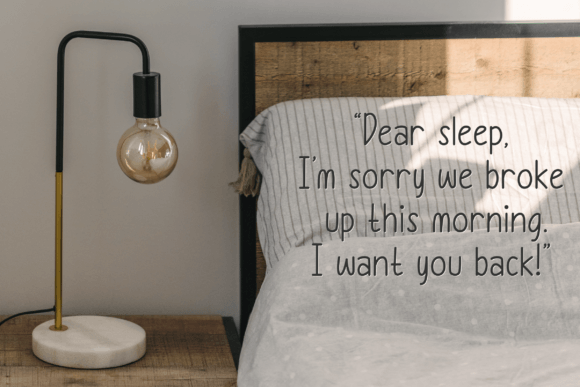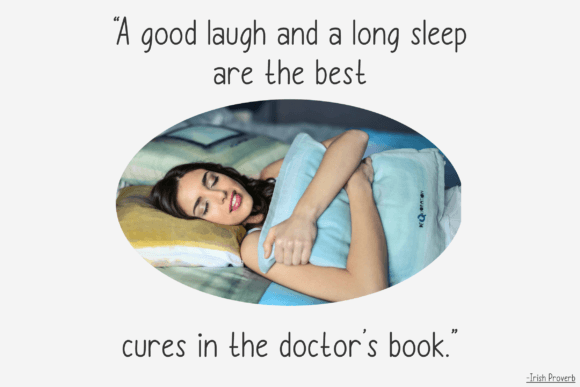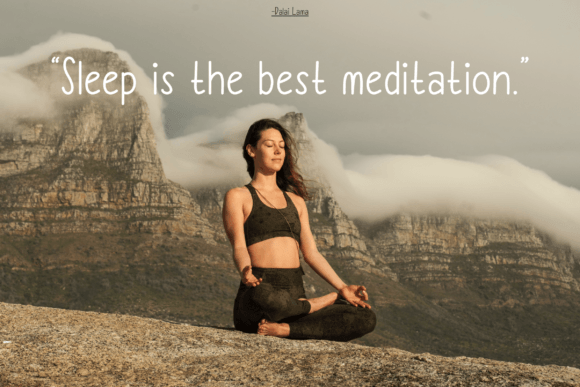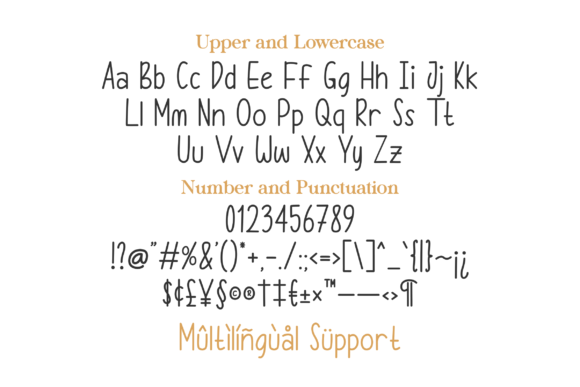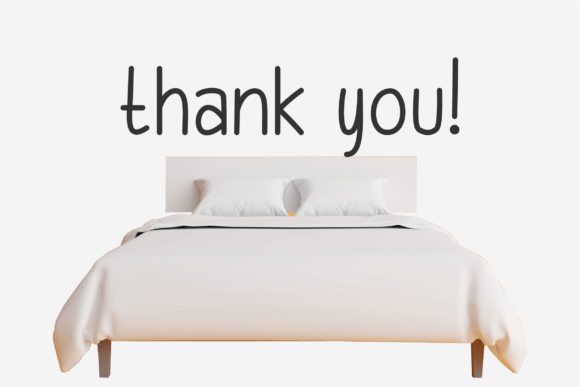
Introduction to Healthy Sleep Font
As a designer, you’ve probably found yourself in a moment where you’re stuck on the perfect font to convey the tone of your project. You scroll through design resources, searching for that one font that speaks to your audience. For me, it’s the moment when the perfect font finally pops up, and everything falls into place.
That’s exactly what Healthy Sleep Font does – it brings a sense of warmth and approachability to your text, making it ideal for creative projects that demand a touch of personality. With its gentle, flowing strokes, this high-quality font is perfect for invitations, greeting cards, and any project that needs a personal touch. And the best part? It’s available for free download, complete with a transparent background, making it a valuable addition to any designer’s toolkit.
Whether you’re a seasoned pro or just starting out, Healthy Sleep Font is a game-changer for designers looking to add a touch of elegance and sophistication to their work.
Key Features of Healthy Sleep Font
- High-quality font design for creative projects, perfect for designers and artists.
- Unique characteristics: The font features a calming and soothing design, ideal for promoting healthy sleep and relaxation.
Honest Review: Healthy Sleep Font
I recently stumbled upon the Healthy Sleep Font, a design resource that has garnered significant attention in the creative community. Upon closer inspection, I must say that it has some impressive features that make it a valuable addition to any project.
- ✨ High-quality design: The font boasts a clean, modern aesthetic that is perfect for a variety of creative projects.
However, I do have some reservations about the font’s limitations.
- ⚠️ Limited character set: The font’s character set is somewhat limited, which may not be suitable for projects that require a wide range of characters.
- ⚠️ No bold or italic versions: Unfortunately, the font does not come with bold or italic versions, which may limit its versatility in certain design applications.
Overall, the Healthy Sleep Font is a solid design resource that can be a great addition to any creative project. While it has some limitations, its high-quality design and transparent background make it a valuable asset for designers.
The Healthy Sleep Font is a high-quality design resource ideal for creative projects that require a soothing and calming atmosphere. With its transparent background, this font is perfect for adding a touch of elegance to your designs.
Tips for Getting the Most Out of Healthy Sleep Font
For best results, use the Healthy Sleep Font in combination with calming colors and imagery. This font is perfect for creating a relaxing atmosphere in designs related to wellness, self-care, and sleep.
The Healthy Sleep Font is ideal for:
- Designing sleep-themed posters and brochures.
- Creating calming websites and landing pages.
- Developing wellness-related social media graphics.